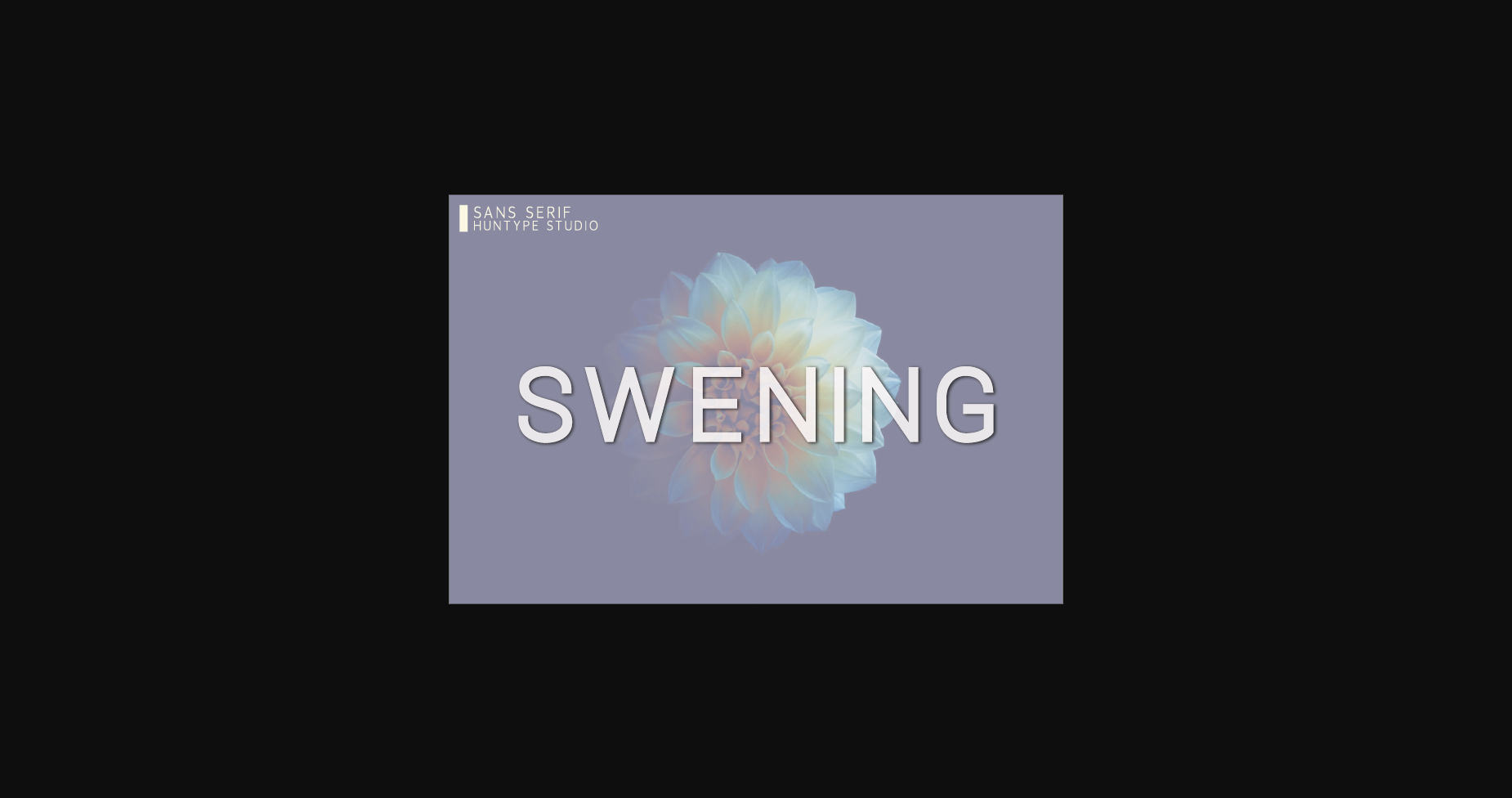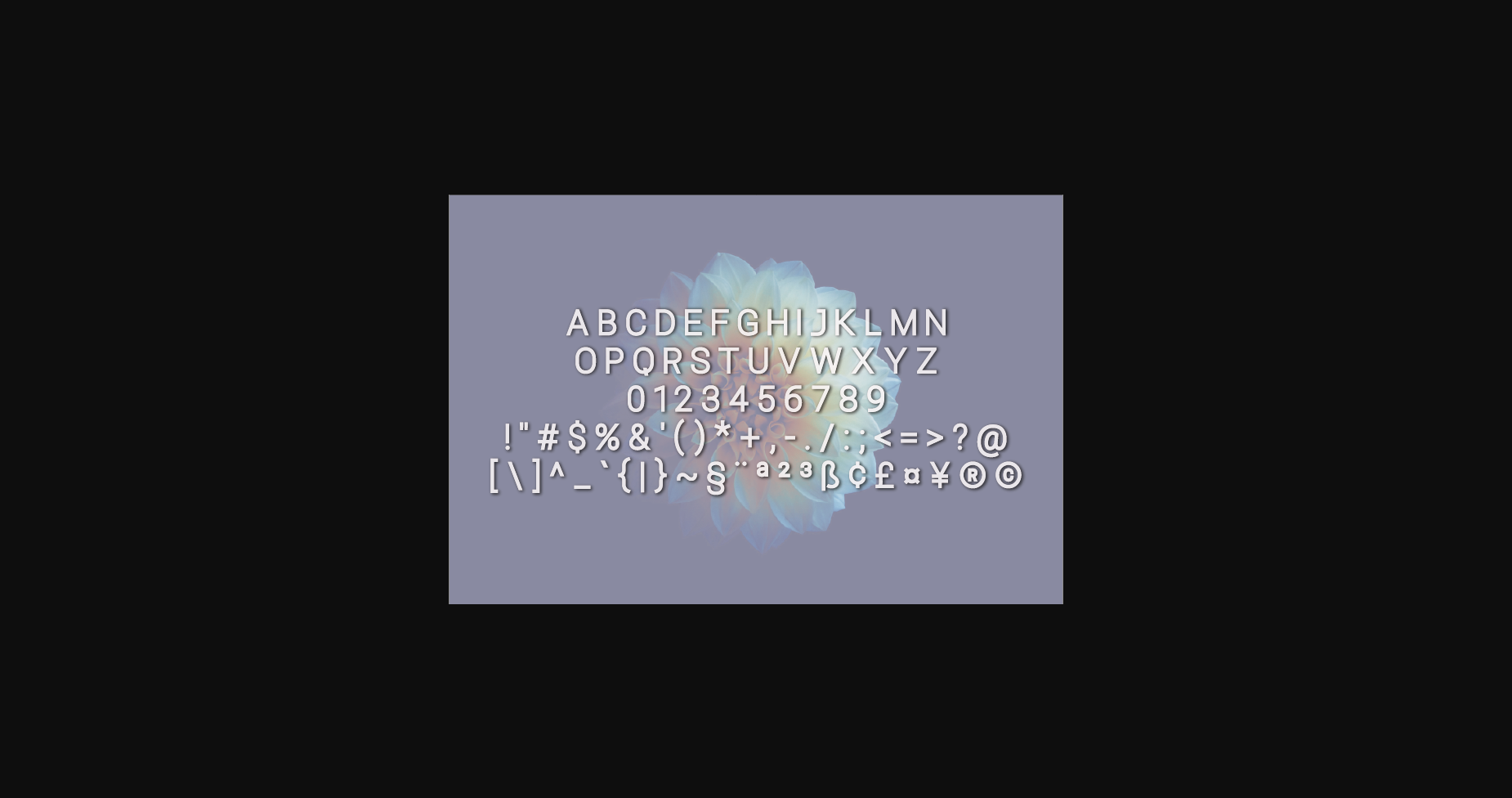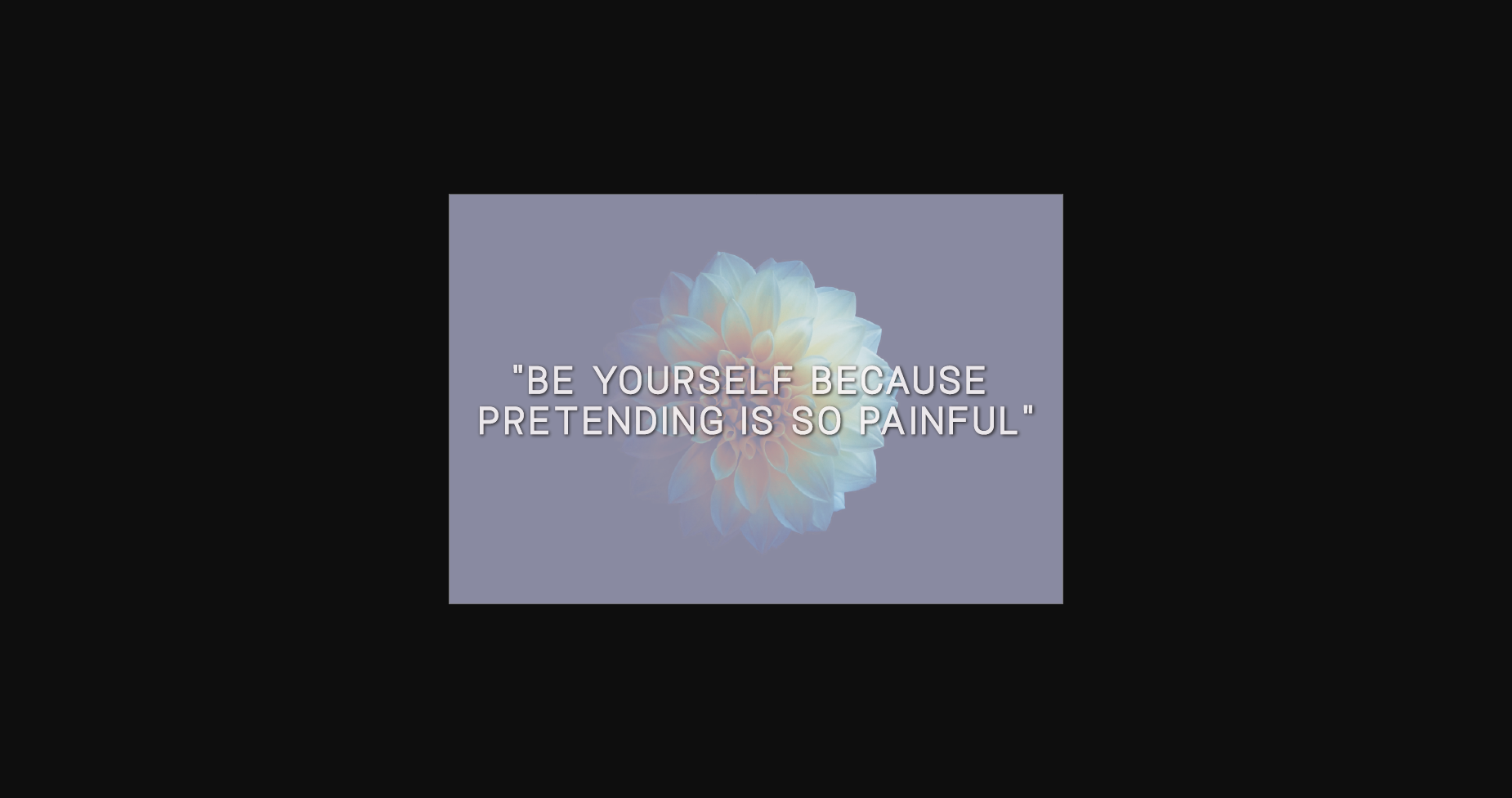
HomeSans Serif FontsSwening Font Sans Serif Fonts Swening Font FacebookXPinterestWhatsApp 1 of 5 ... Swening Font Poster 2... Swening Font Poster 3... Swening Font Poster 4... Swening Font Poster 5... About Swening Font Swening is a minimal and neat sans serif font. It can easily be matched to an incredibly large set of projects, so add it to your creative ideas and notice how it makes them stand out! DOWNLOAD NOW People also explored Violableness Font Woliu Maners Font Grand Matilda Font Flush Font Argumend | A Humanistic Slab Serif Font Shirt & Tie Font Wondering Notes Font Handuck Font Wincent Thin Font 288 0 TagsSweningSwening Font Previous articleFibreo FontNext articleDeobird Font LEAVE A REPLY Cancel reply Comment: Please enter your comment! Name:* Please enter your name here Email:* You have entered an incorrect email address! Please enter your email address here Website: Save my name, email, and website in this browser for the next time I comment. Personal Use Free Abuget Free Script Personal Use Free Read more about this font Brittish State Personal Use Free Read more about this font Manbow Personal Use Free Read more about this font Engine Personal Use Free Read more about this font BLOG Using Fonts in Digital Marketing: Tips to Strengthen Your Brand Identity In the realm of digital marketing, every visual element plays a crucial role in shaping a brand's identity, and fonts are no exception. The... Best Fonts for T-Shirt Design – Top 2025 Picks Transform Your Website: Elevate Your Typography with 7 Best Web Font Generators Exploring Font Trends